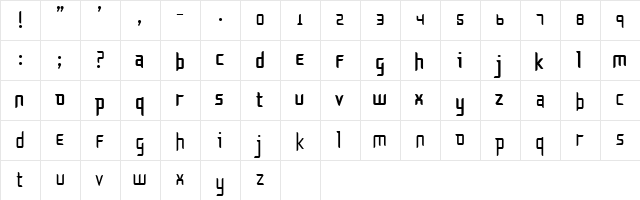
Sliver Regular
Design Context for Sliver Typeface
Sliver is a composed and adaptable typeface that performs quietly and consistently across a wide range of design contexts.
Pro Tip: Pair Sliver with a font of contrasting weight or personality to build a more expressive typographic hierarchy.